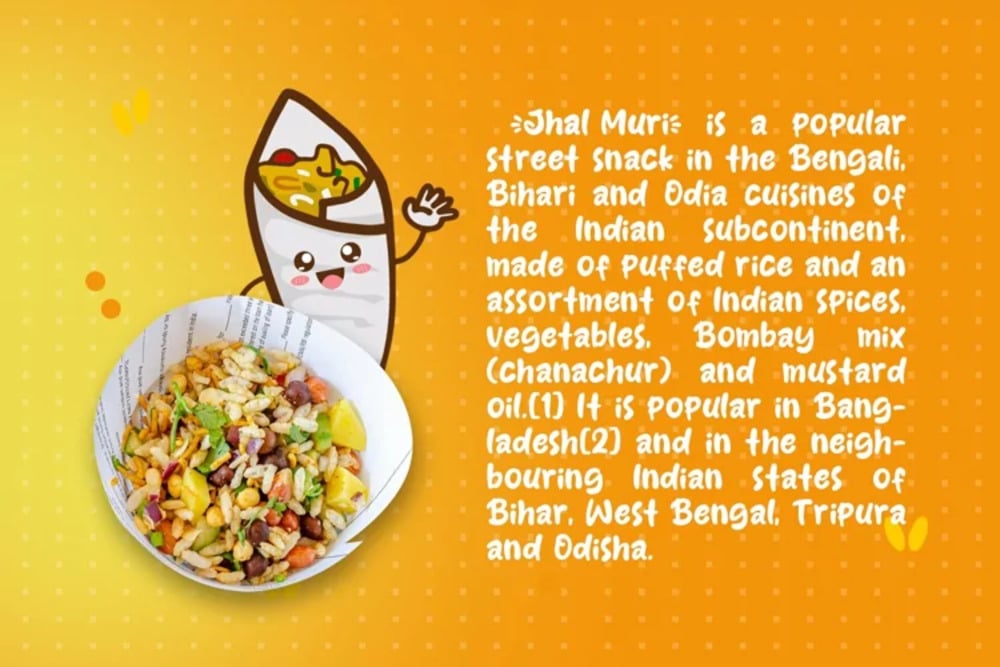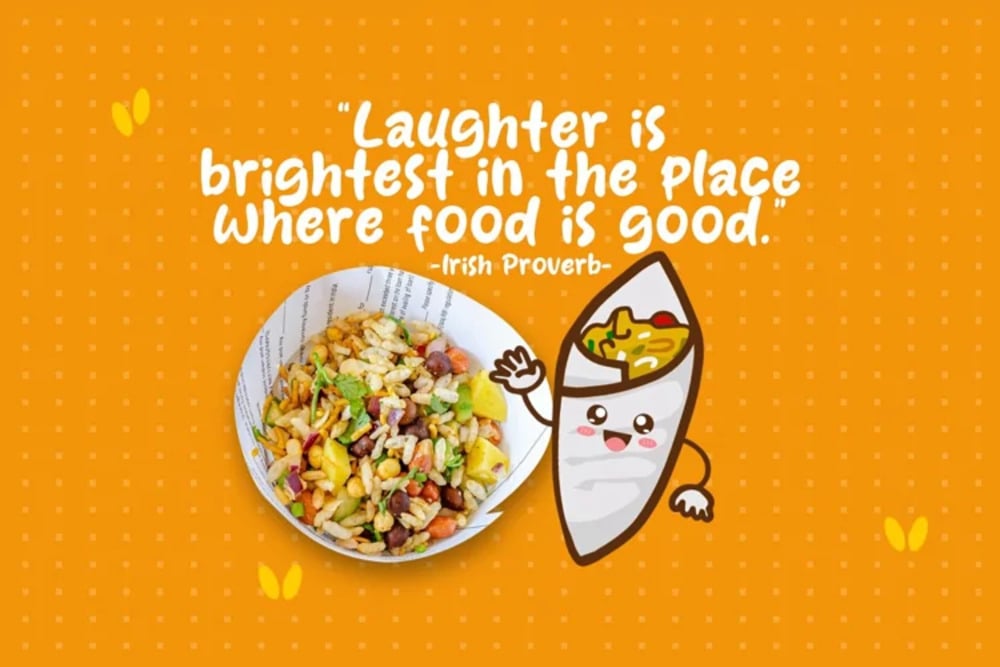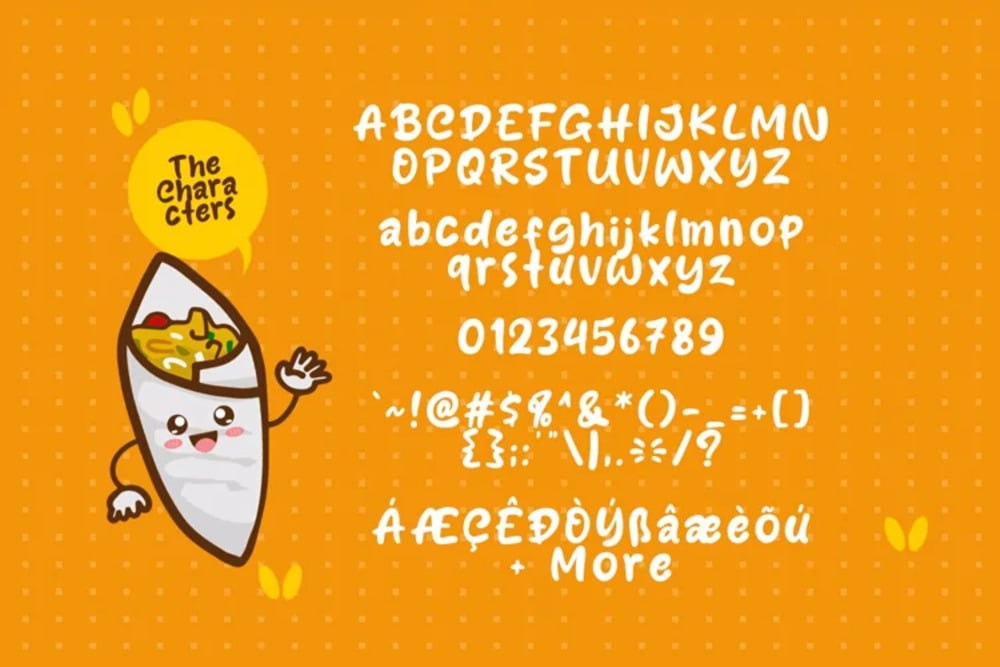
Jhal Muri Font
Jhal Muri is a playful and quirky display font with a distinctly Indian flair. Inspired by the vibrant street food snack, it captures the energy and spice of Indian culture. Its bold, slightly irregular letterforms are perfect for adding a touch of fun and authenticity to posters, menus, packaging, and other designs that celebrate Indian flavors and aesthetics. Jhal Muri adds a zesty, unforgettable kick.